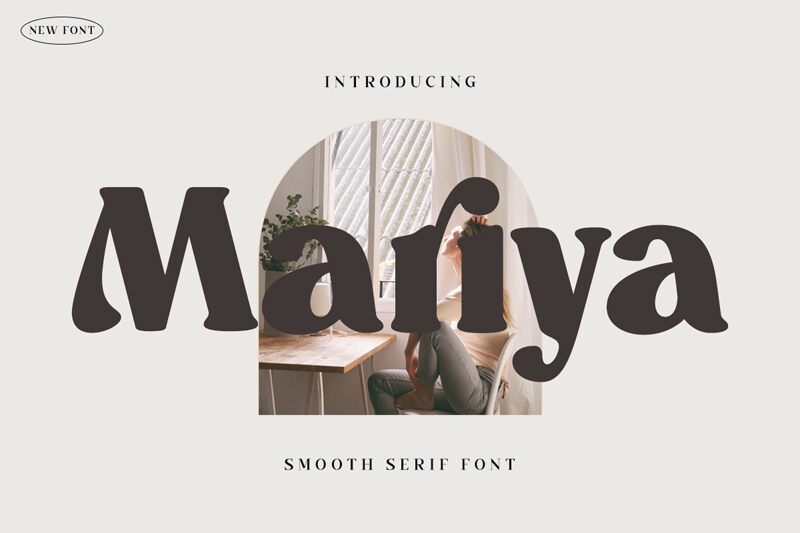
Mariya
Mariya, designed by Kong Font, is a captivating and versatile font that combines elegance with a touch of playfulness.
Its smooth serif style adds a touch of sophistication to any design project, making it perfect for branding and logo creation. With its bold weight, Mariya commands attention and is particularly well-suited for headlines and titles in magazines or websites. Whether you're working on a fashion editorial or a luxurious lifestyle blog, Mariya will effortlessly elevate your typography game.